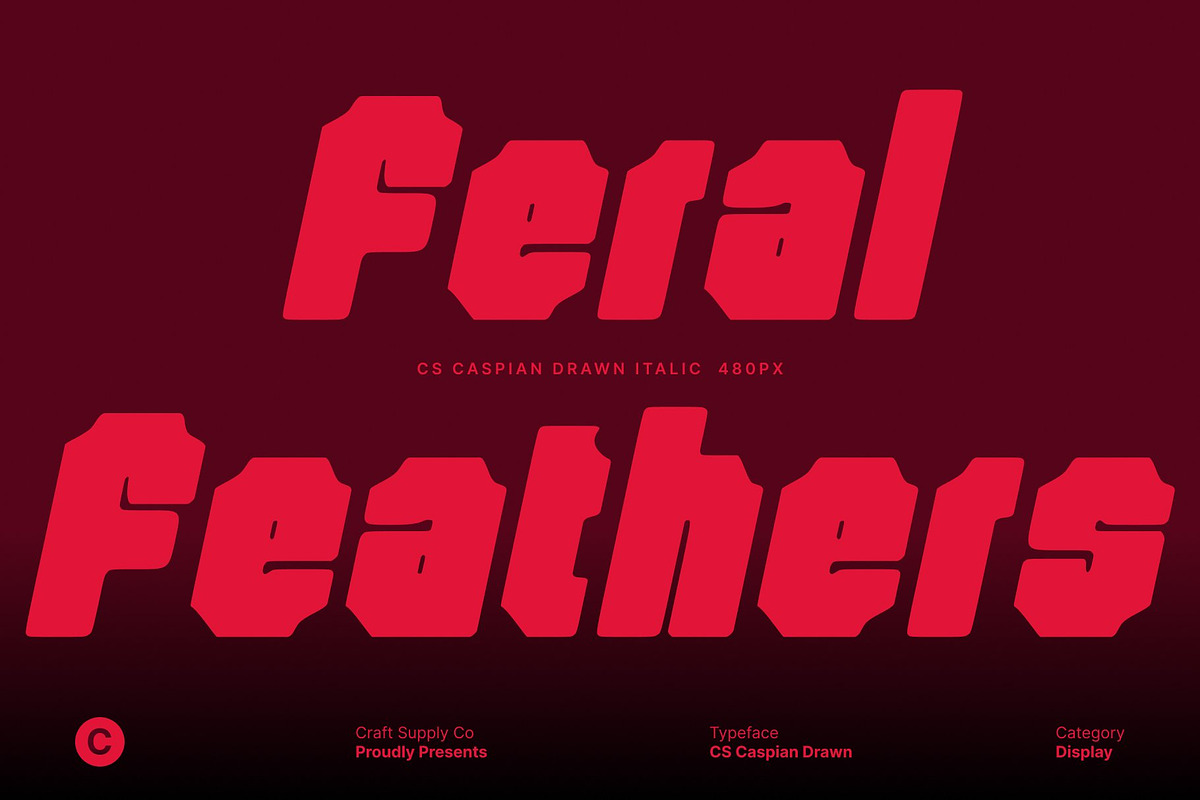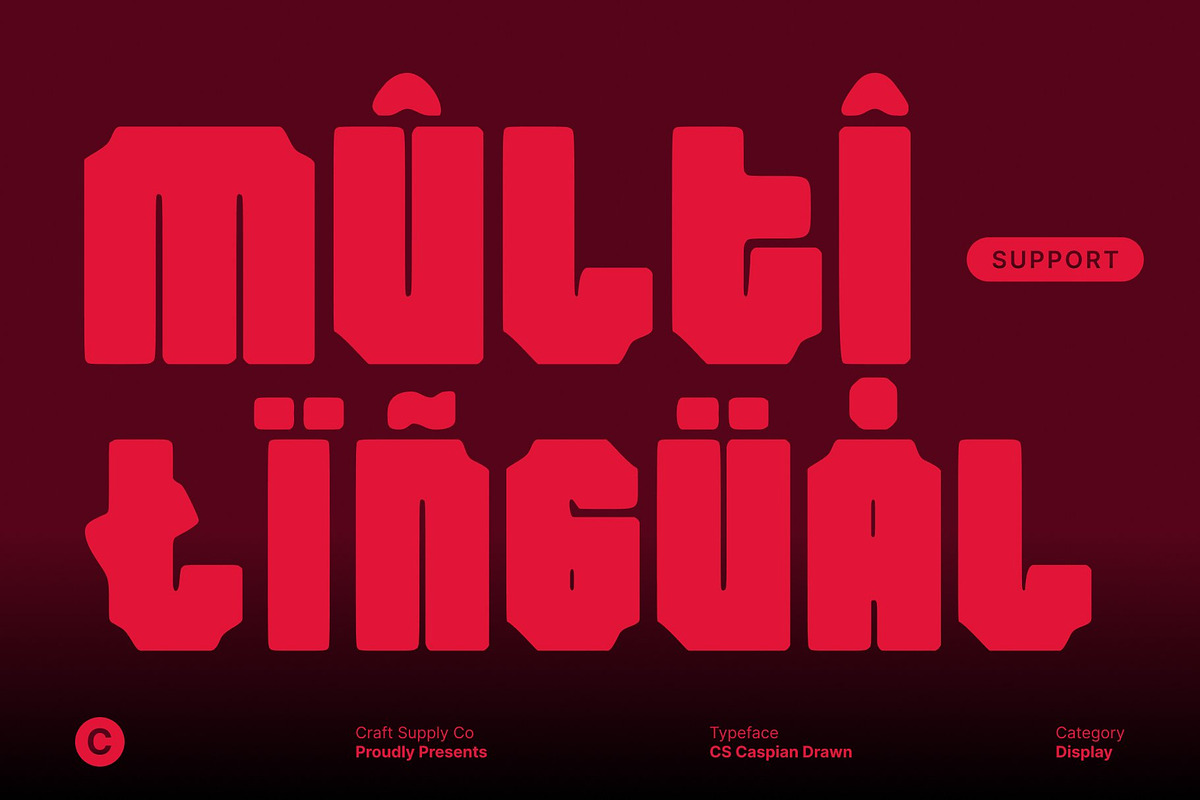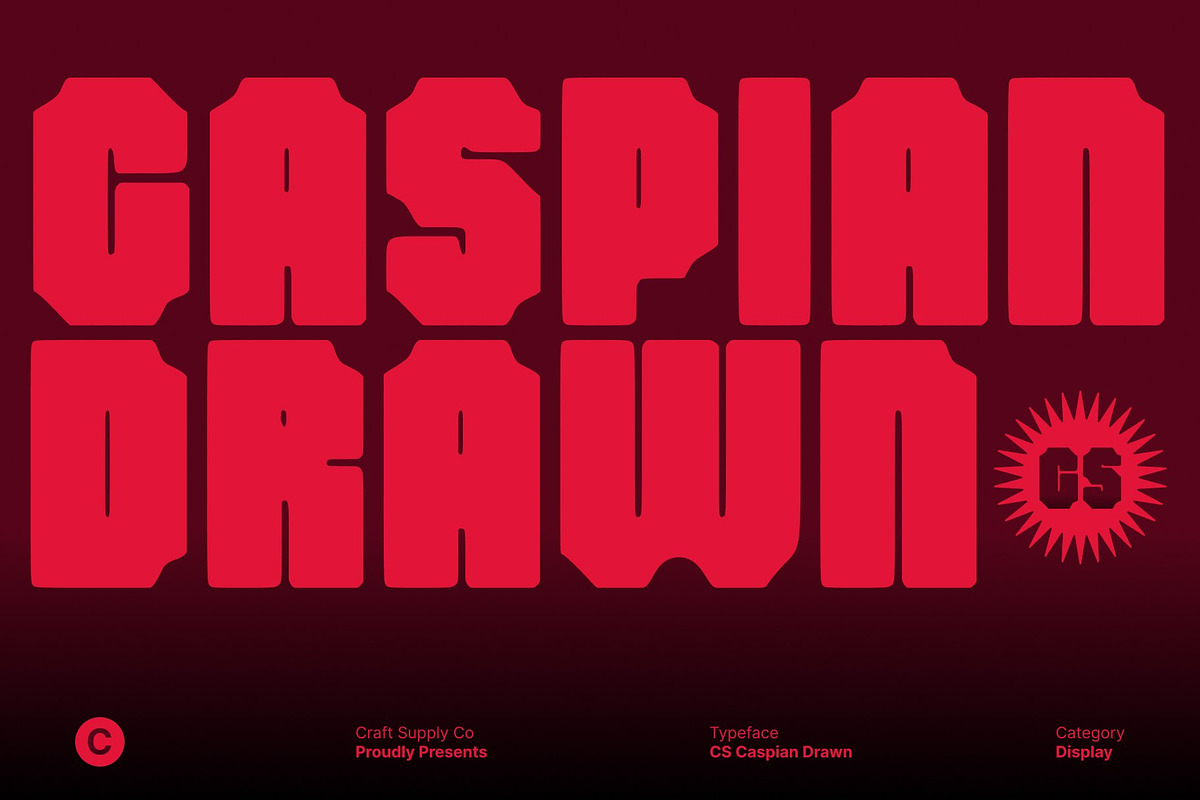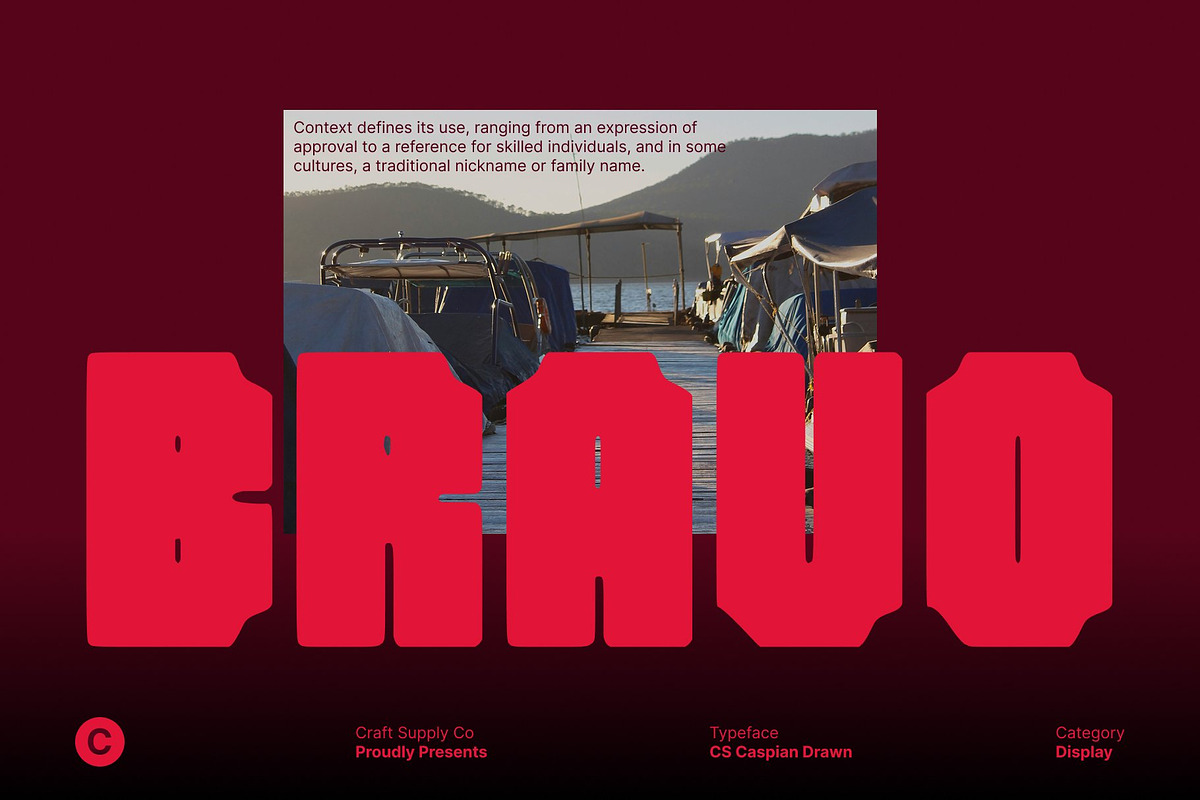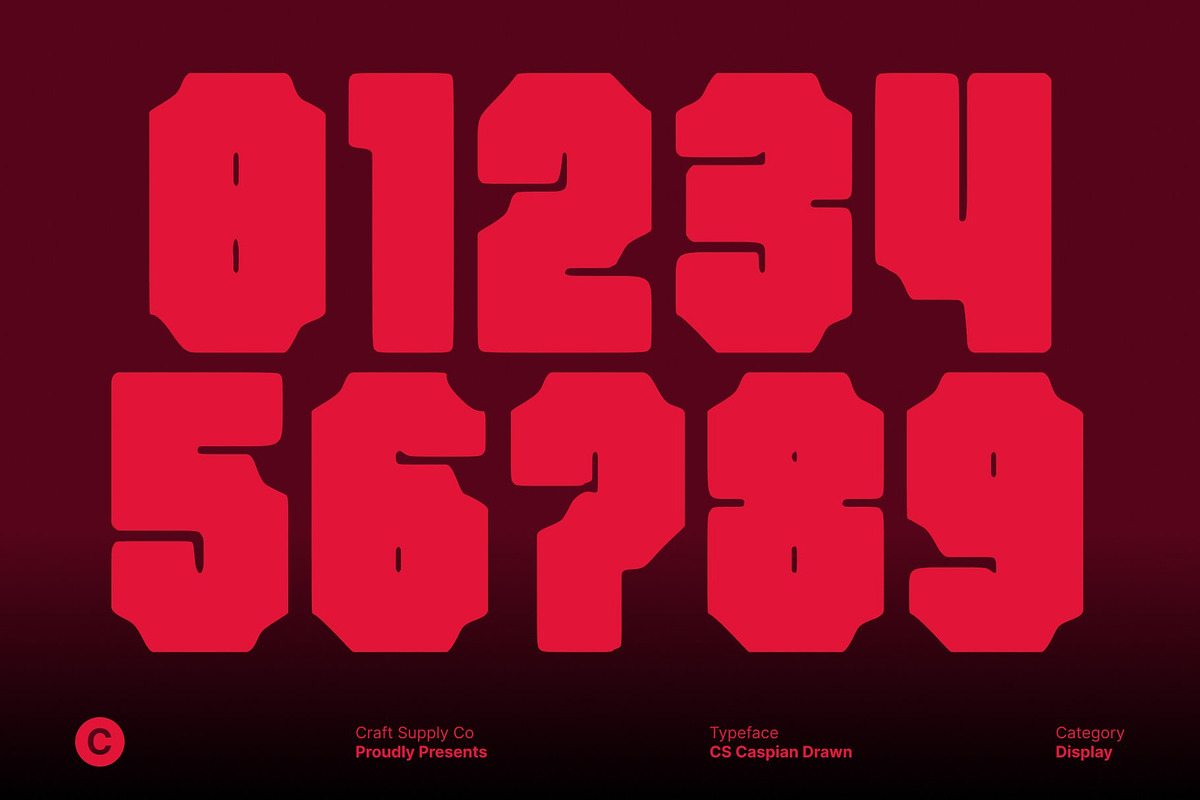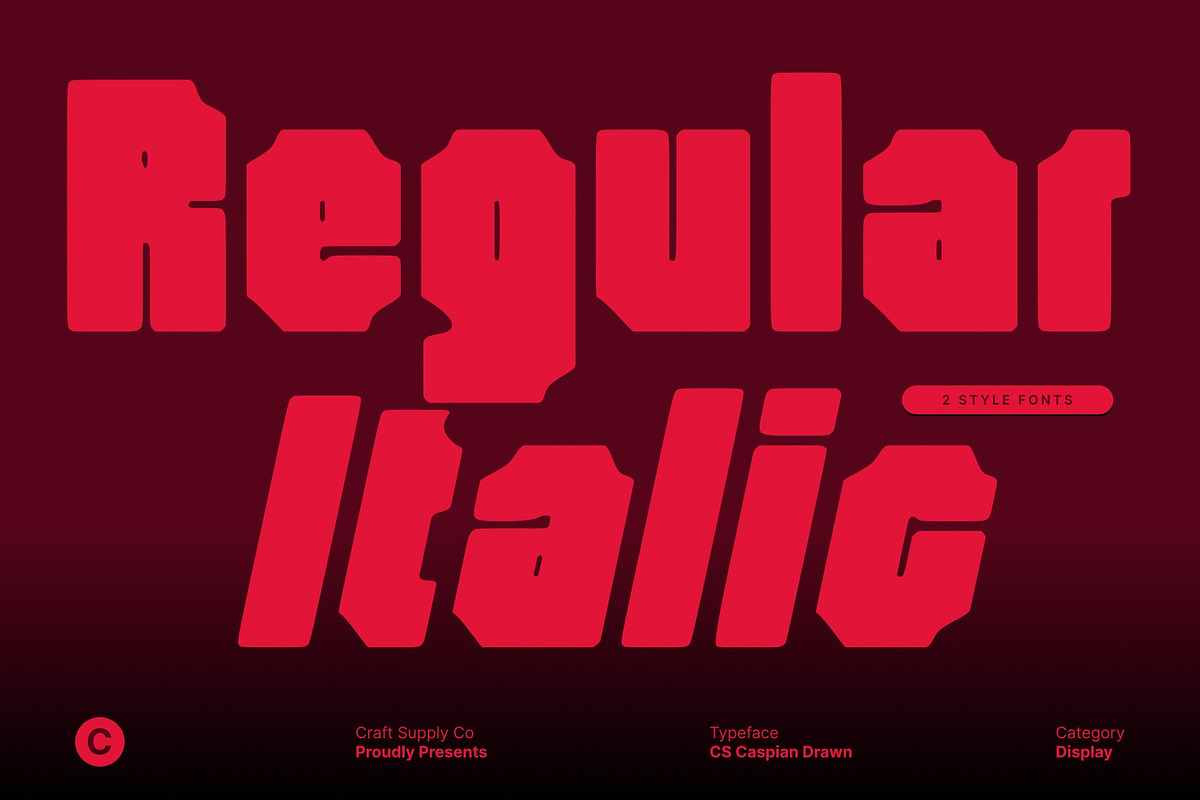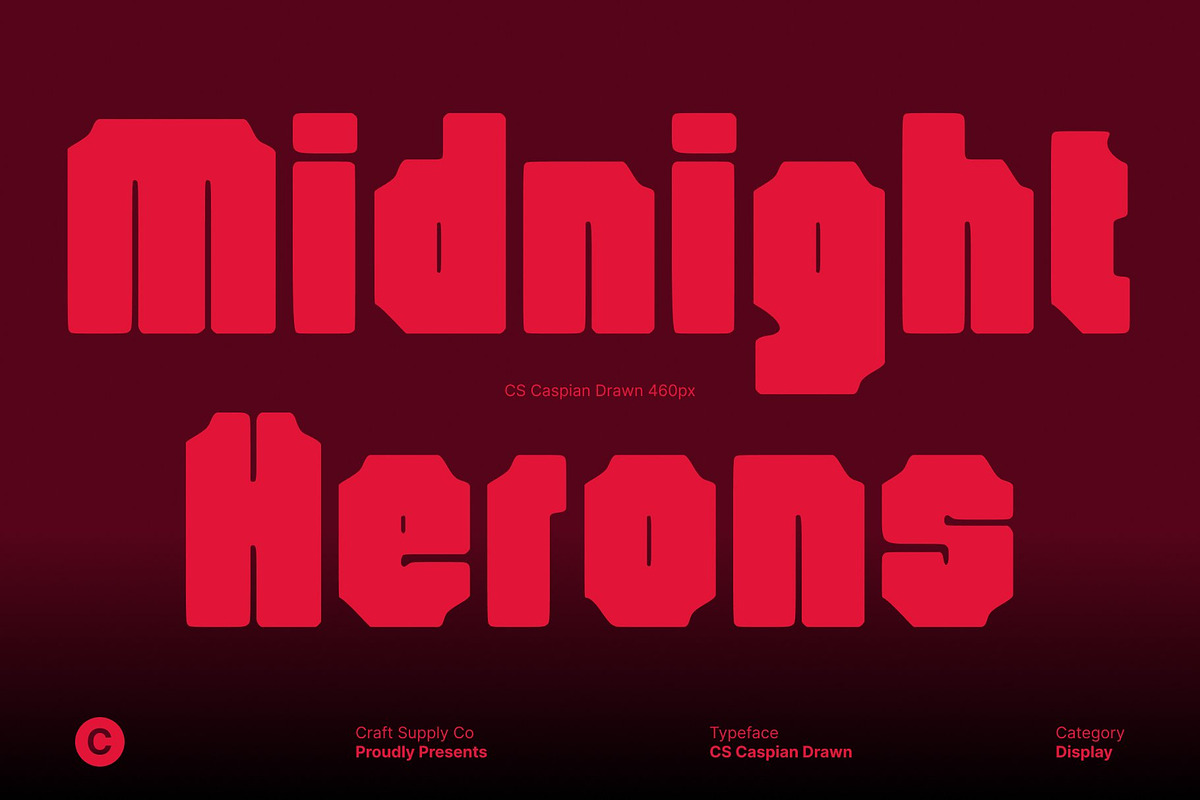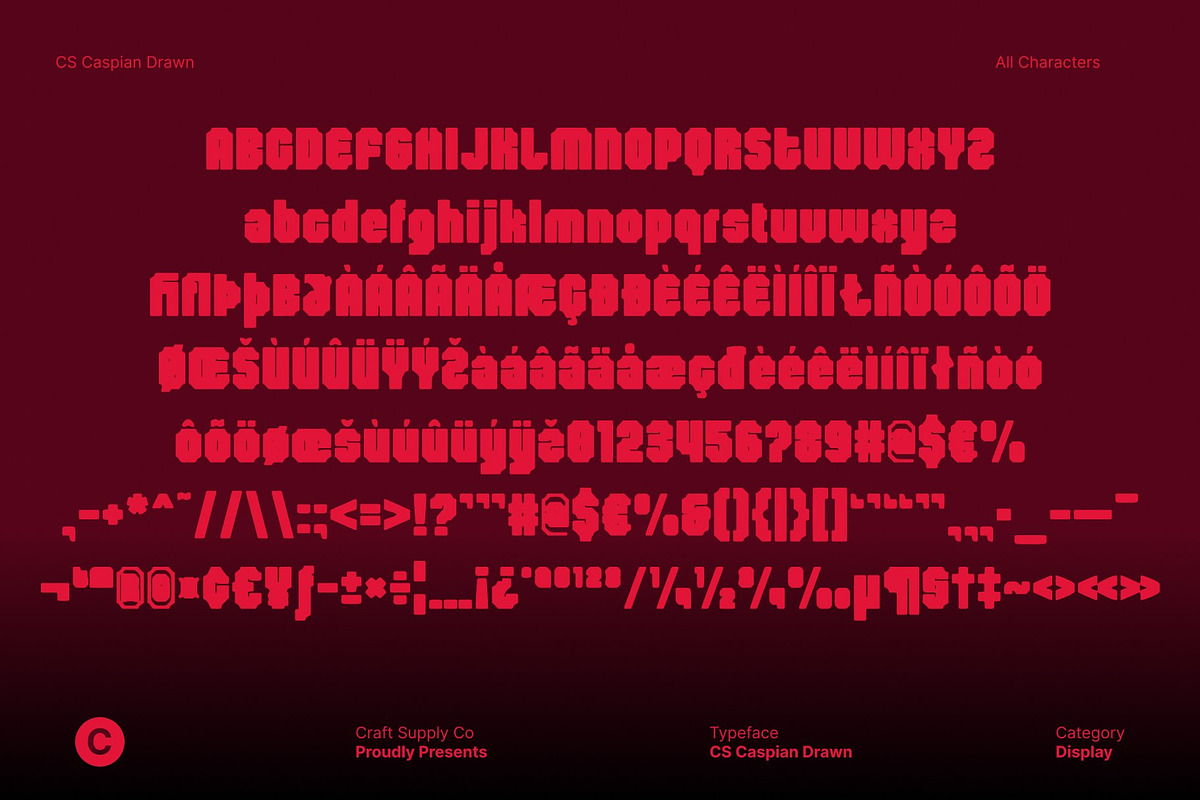
CS Caspian Drawn
CS Caspian Drawn – Rugged Industrial Font with Hand-Drawn Texture
Rugged Industrial Character with Strong Presence This is a bold industrial-style display font built to convey power, strength, and masculinity. Its sturdy letterforms and solid construction create a commanding visual presence, making it ideal for designs that need to feel tough, confident, and impactful. The overall structure feels raw and purposeful, reflecting an industrial aesthetic that stands out with authority.
Bold Shapes for Maximum Impact The heavy strokes and firm proportions of this font give it a strong, grounded appearance. Each character is designed to remain clear and readable while still delivering a bold statement. This balance makes the font highly effective for impactful headlines, logos, and large-scale typography where visual dominance is essential.
Hand-Drawn Finish with Artistic Texture Enhanced with a drawn effect, gains an artistic, handmade texture that adds depth and expression. Subtle irregularities and textured details soften the rigid industrial forms, creating a more human and expressive feel. This drawn finish brings warmth and character, making the font look artistic while retaining its rugged edge.
Perfect for Branding, Packaging, and Headlines This font is a strong choice for branding, packaging design, posters, and promotional materials that demand a bold and masculine tone. Its industrial strength combined with artistic texture makes it versatile for modern designs that want to communicate toughness, authenticity, and handcrafted character.
- CS Caspian Drawn Regular
- CS Caspian Drawn Italic